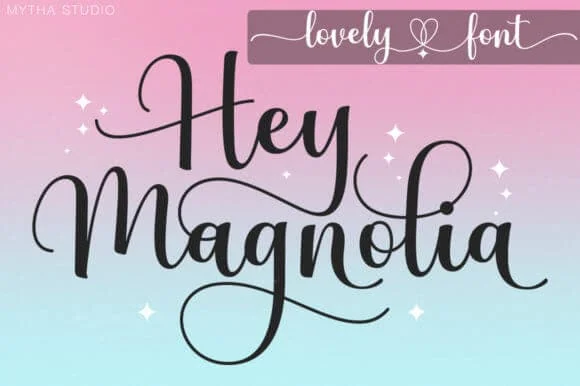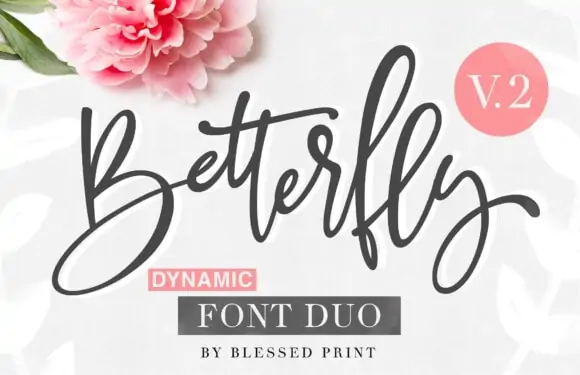
Are you planning to create stunning wedding crafts? Here are the best wedding fonts for Cricut that will make you fall head over heels!
- Save the Date – Madina
- Olivia and David – Creative Vintage
- L Love G – Couples Monogram
- Welcome – Betterfly
- Kate Love Ben – Hello Honey
- S + H – Little Love
- Reception – Breakfast Pastry
- Cards & Gifts – Flamingo
- Guestbook – Octavia
- Mr & Mrs – Ashadiya
- R Monogram – Sweety Craft
- Bride – Glory Sunset
- M Monogram – Monogram Heart
- Oh Snap! – Vanilla Cream
Whether you are a bride planning for your big day or looking to make gifts for a loved one’s wedding, using wedding fonts for Cricut is a lifesaver.
Handmade crafts make for the best wedding decor and gifts. From wedding signs to bridesmaids’ shirts, you can personalize almost every aspect of a wedding to your liking.
These breathtaking wedding fonts for Cricut will help bring your creative craft ideas to life no matter your wedding style.
Best Wedding Fonts for Cricut
A wedding is a special occasion, and we know how crucial it is to choose the perfect font. This curated list comes from our experience as crafters and SVG designers. We’ve tested over 600 fonts for Cricut projects, including wedding-related items like invitations, t-shirts, signs, and mugs.
1. Randy Sofia
Best Overall Wedding Font for Cricut
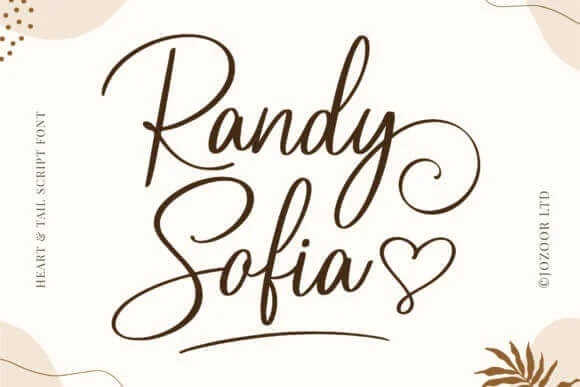
Randy Sofia is the perfect Cricut font for wedding elegance. Its romantic script style is ideal for invitations, place cards, and signage.
The elegant swashes and hearts add a touch of whimsy. Moreover, Randy Sofia’s smooth letters ensure flawless cuts in Cricut projects, ensuring every wedding detail is crafted precisely and beautifully.
This font is not just a choice; it’s a statement for your special day.
2. Hello Honey
Most Popular Wedding Font for Cricut
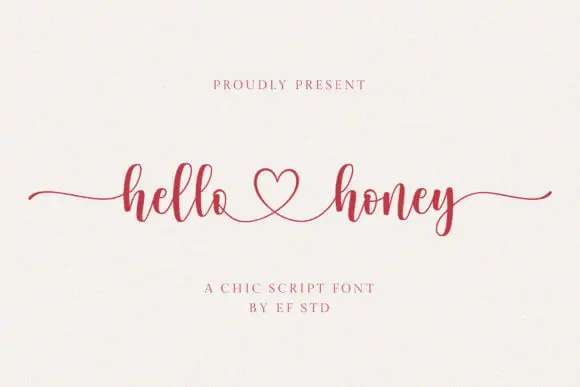
Hello Honey is a beautiful handwriting font with heart swashes and tails. This stunning font will add a luxurious yet playful touch to your wedding crafts.
This versatile font is perfect for personalizing wedding gifts with the couples’ names. It is also perfect for all your wedding decor needs, like welcome signs and table number signs.
3. Always Loving
Best Font for Cricut Wedding Invitations
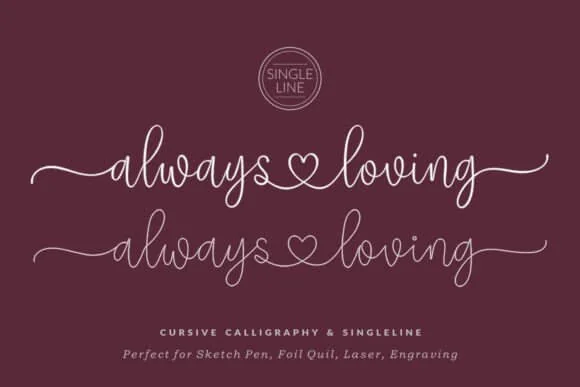
Picking the right font for your wedding invite is a big deal for any bride. You want a font that’s Cricut-friendly and delivers stunning results.
Here’s a tip: choose a single-line or writing font. These are compatible with Cricut pens and foil quill projects, and they work well.
If you’re looking for a sure winner, check out Always Loving. It’s a cursive calligraphy font thatโs a go-to choice for making wedding invites memorable.
4. Madelyn Heart
Best Font for Cricut Wedding Signs
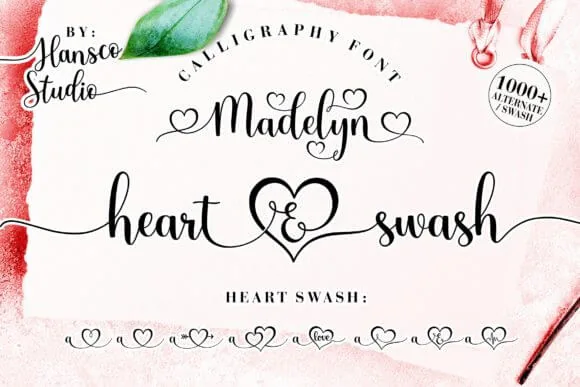
Madelyn Heart is all about bringing that extra bit of magic to your big day. Its elegant swirls and adorable heart accents make every sign look like a piece of art.
The script font comes loaded with a variety of glyphs and swashes, offering endless customization options. It shines especially when crafting welcome signs for weddings.
Imagine seamlessly connecting the names of the bride and groom with hearts, infusing every sign with a romantic charm.
5. Dear Agatha
Best Cricut Writing Font for Weddings
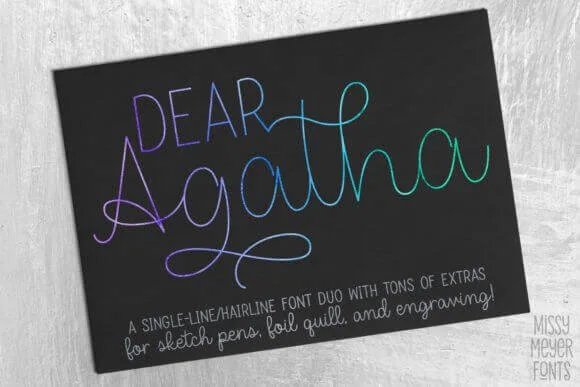
If you’re looking for the perfect font for your wedding invites and envelopes, you’ve got to check out Dear Agatha.
It’s a combination of a connecting script and a super readable all-caps sans-serif font. Use the fancy script for names to add some flair and the clean sans serif for addresses.
The best part? It’s a single-line font that works like a charm with engraving, foil quill, and sketch pen projects. Plus, it comes with some awesome extras to help you add your own personal touch.
6. Little Love
Best Wedding Font for Seating Charts
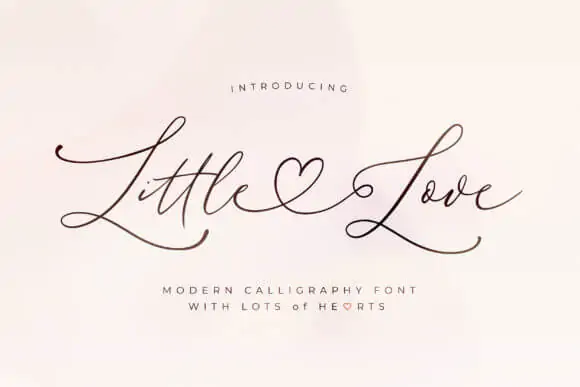
Little Love is a modern calligraphy font for Cricut that will add a graceful touch to your wedding crafts. This ethereal font with gorgeous letters and elegant tails will make all your modern wedding dreams come true!
It’s a thin but smooth and clean font with breathtaking flourishes and swashes.
Combine the bride’s and groom’s initials to create a unique monogram. Make bridesmaids’ shirts, seating charts, tote bags, and wedding signs with this font.
7. Le Mores Signature
Best Font Pairing for Table Numbers & Place Cards
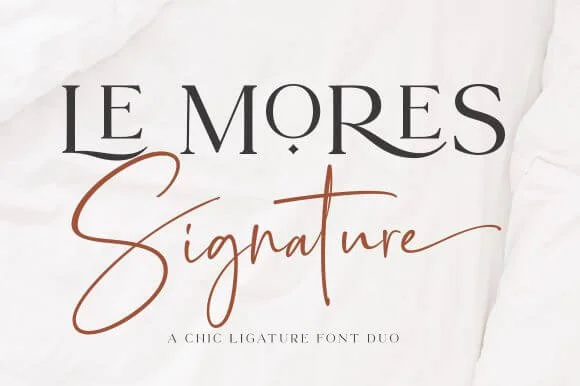
Le Mores’ combination of elegance and readability makes it the go-to for creating an unforgettable, stylish ambiance at your wedding. It features a chic script and a classy serif font that will add vintage charm to your designs.
Final Thoughts
Choosing the right wedding font is an important decision for your special day. We’ve been there, tested hundreds of fonts, and found the ones that truly shine.
From adding elegance to your invitations to infusing magic into your signs, these fonts have got you covered. And if you’re on a budget, don’t worry; there are fantastic free options, too.
Unleash your creativity and craft a wedding day to remember. All with the magic of choosing the right font.